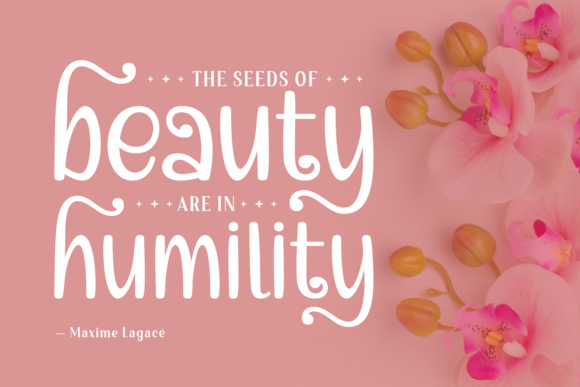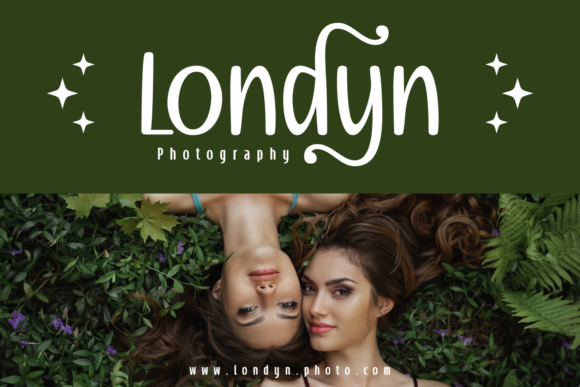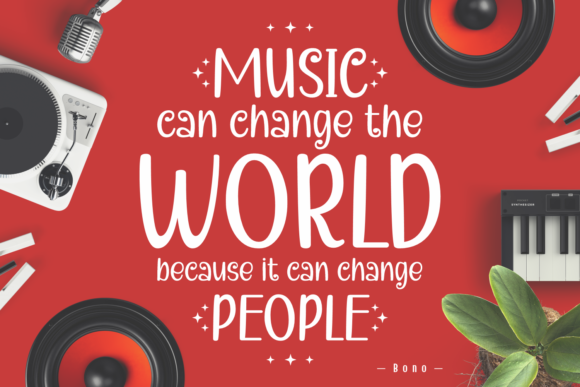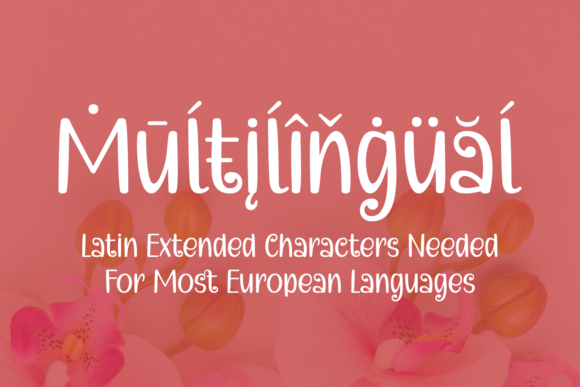
Melody Stories Font
Melody Stories is a whimsical and trendy handwritten font. It looks stunning on wedding invitations, thank you cards, quotes, greeting cards, logos, business cards, and every other design which needs a customized touch. Add this lovely freebie to your creations and take your designs to the next level!